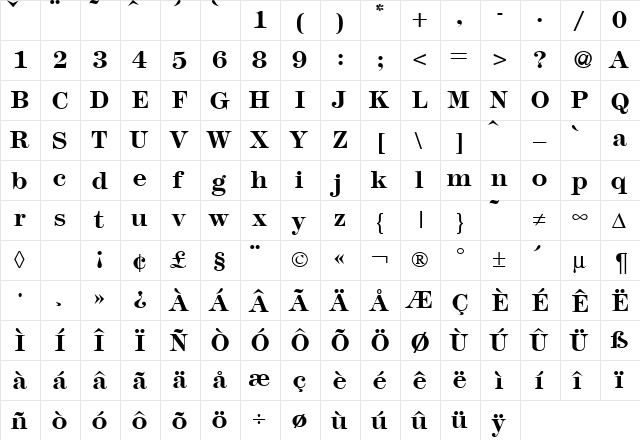
Modern438 Bold Font Preview
Modern438 Bold
Modern438 Bold Font Details
Design Context for Modern438 Typeface
Modern438 takes a measured approach to typography — its balanced proportions and neutral character make it a reliable workhorse for both digital and print work. Its bold stroke weight gives it real presence on the page.